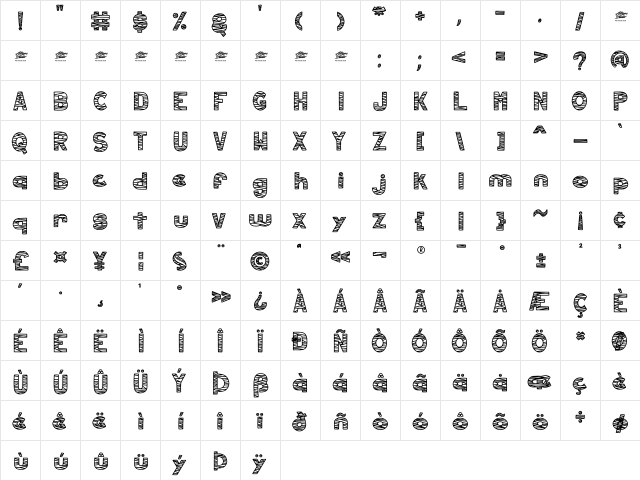
hollow mummy display - Personal Regular
Design Context for hollow mummy display - Personal Typeface
hollow mummy display - Personal brings ornamental detail and strong personality to headlines and identities, where visual impact matters more than quiet functionality.
Font Pairing: Pair with a clean neutral sans-serif for body copy to let hollow mummy display - Personal's character lead without overwhelming the composition.
Pro Tip: Treat hollow mummy display - Personal as the centrepiece of your typographic hierarchy. One strong heading set in a decorative face can carry an entire layout.